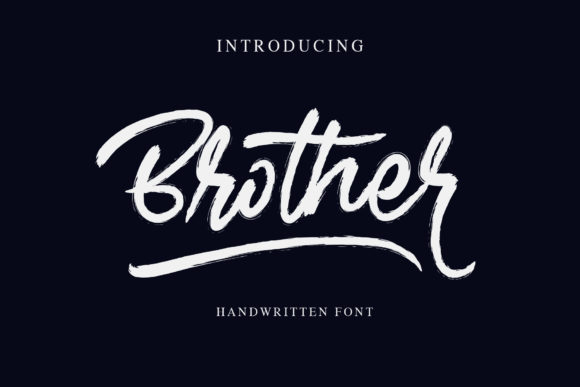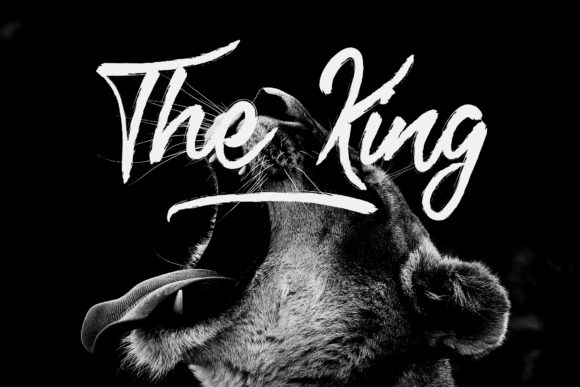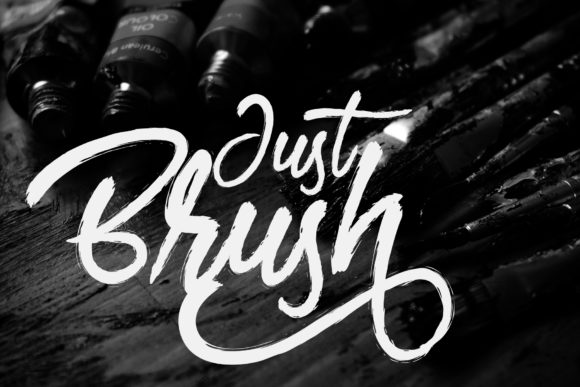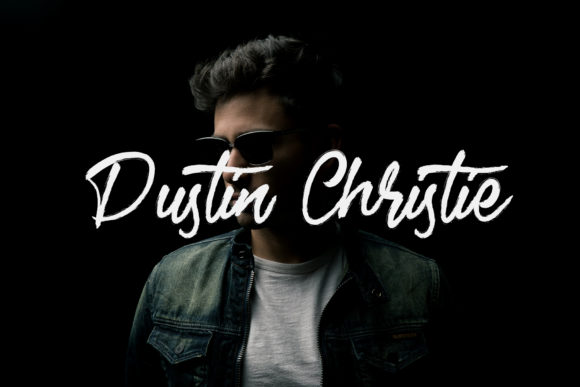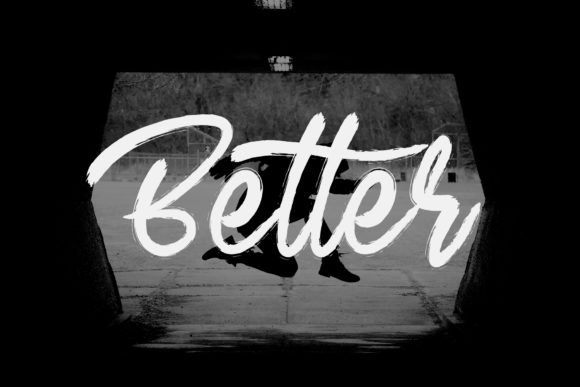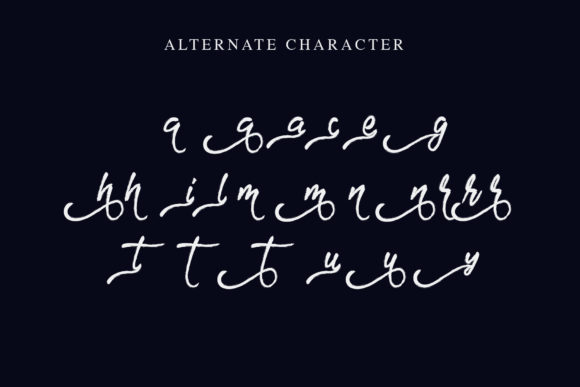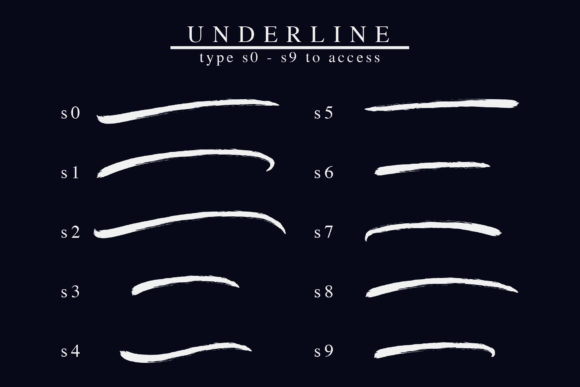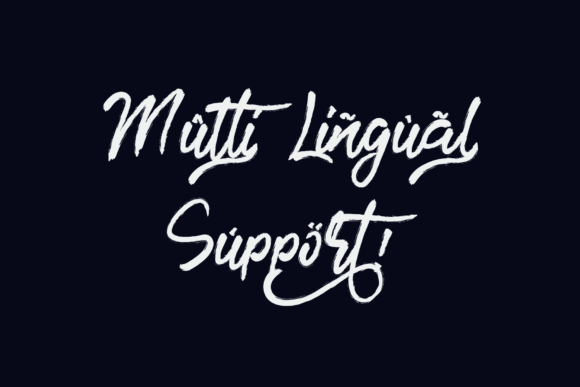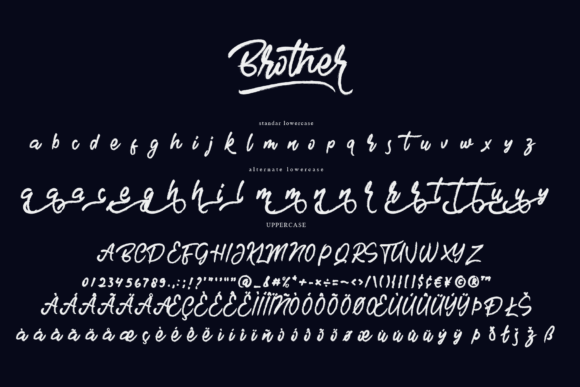
Brother Font
About Brother Font
The Brother is an amazing handwritten font. It was made with a brush and has a classy style.
It’s perfect for watermarks, album covers, business cards, and much more!